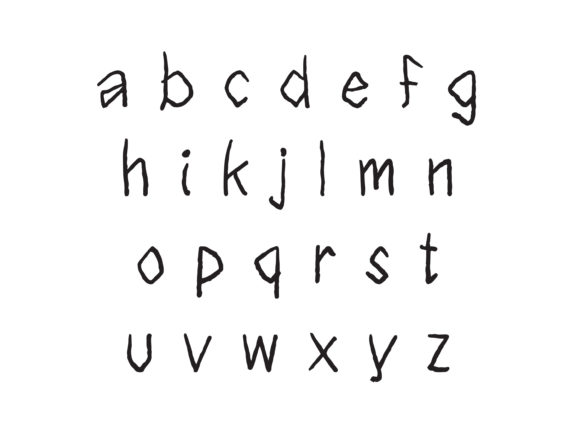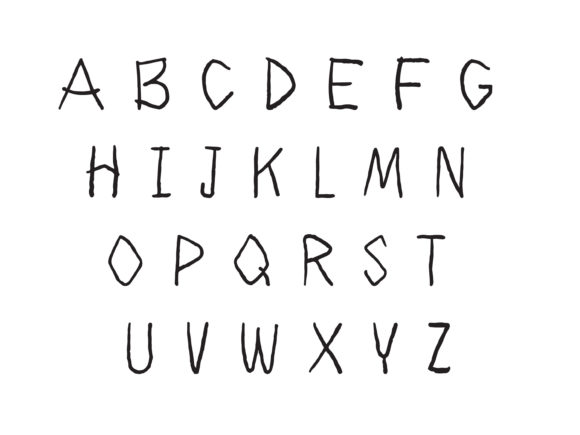
Chorner Font
db-ku.com - Script & Handwritten -- Chorner is a handwritten font that looks strong but has rhythm. It is suitable for informal text and quotes on products, like mugs or shirts.